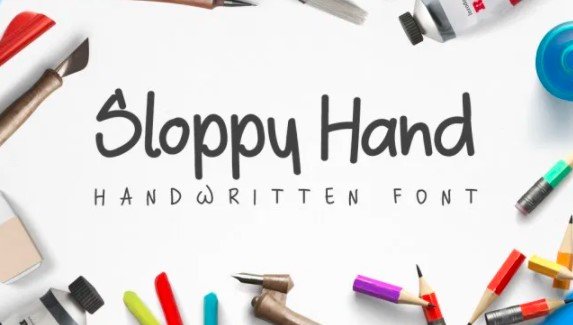
Presenting the stylish, intelligent, and sophisticated handwritten texture created with exceptional originality. This is the Sloppy Hand Font, designed and shared by Design A Lot.
This is an outstanding typeface that contains rich features in this font. The typeface is perfect for all graphics as well as arts works.
If we talked about usage, this can be useful for all great works. Because of handwritten texture, you can use it for designing covers, t-shirts, mug designs, logos, posters, magazines covers, and much more.